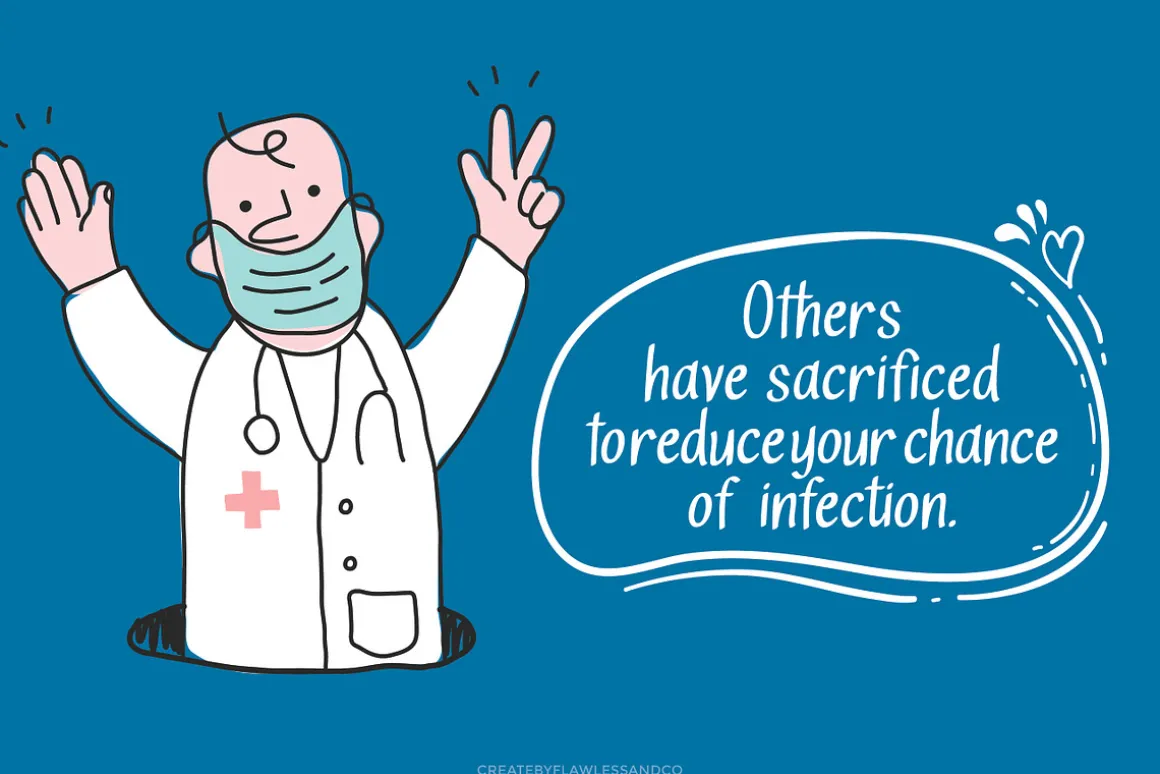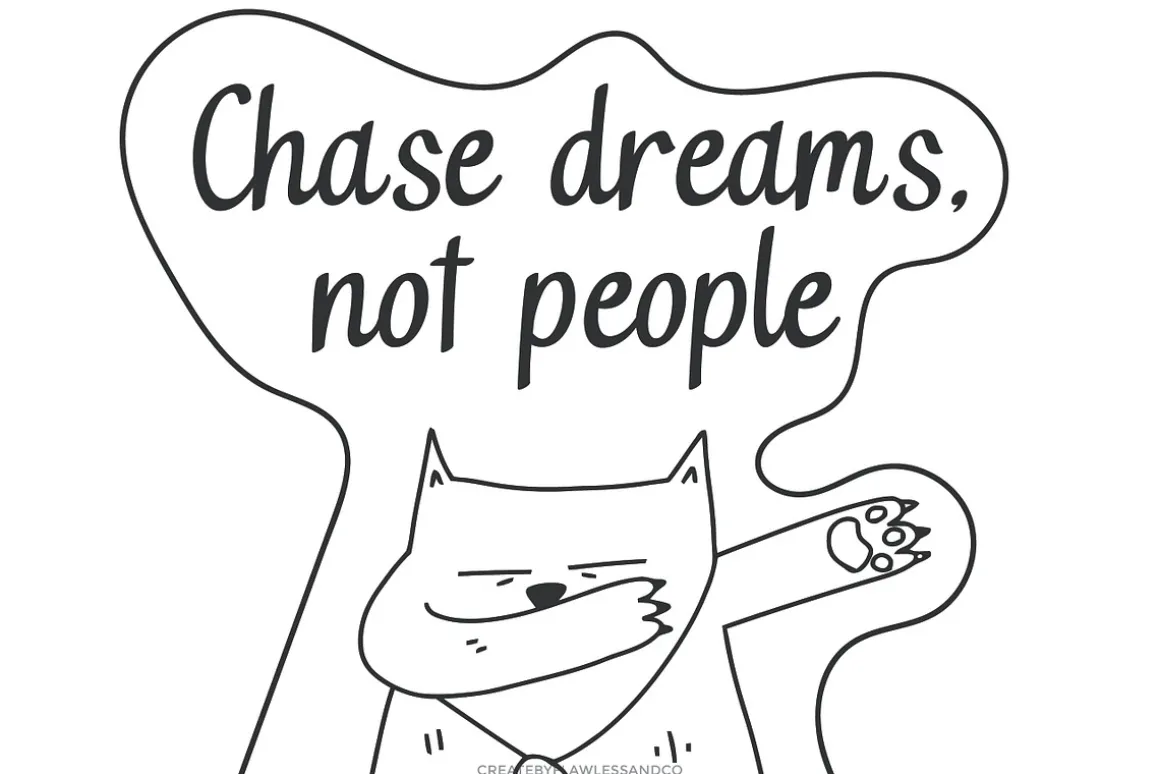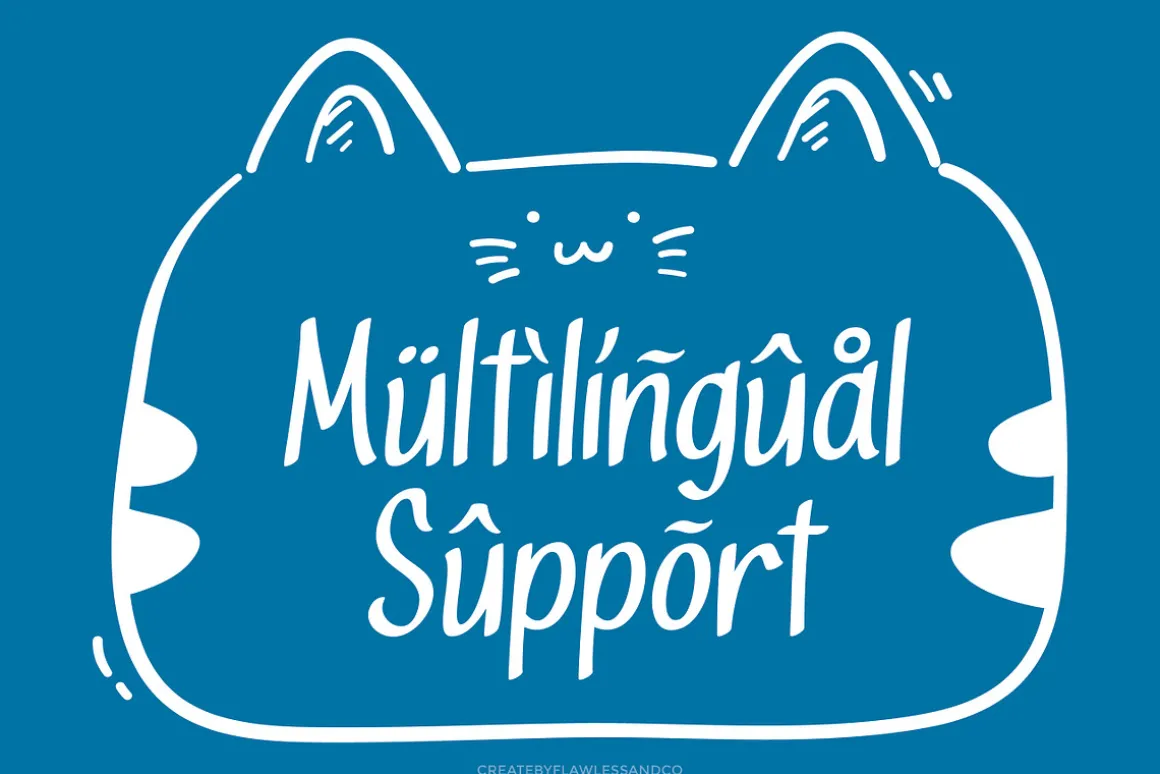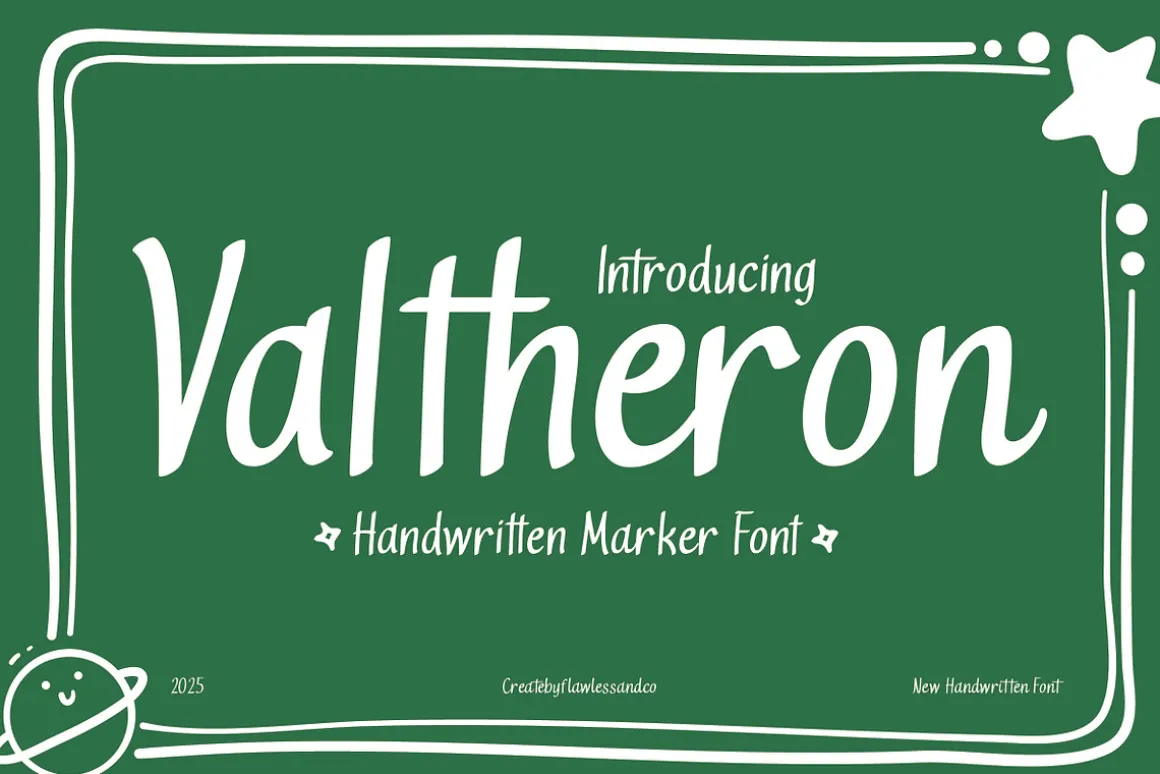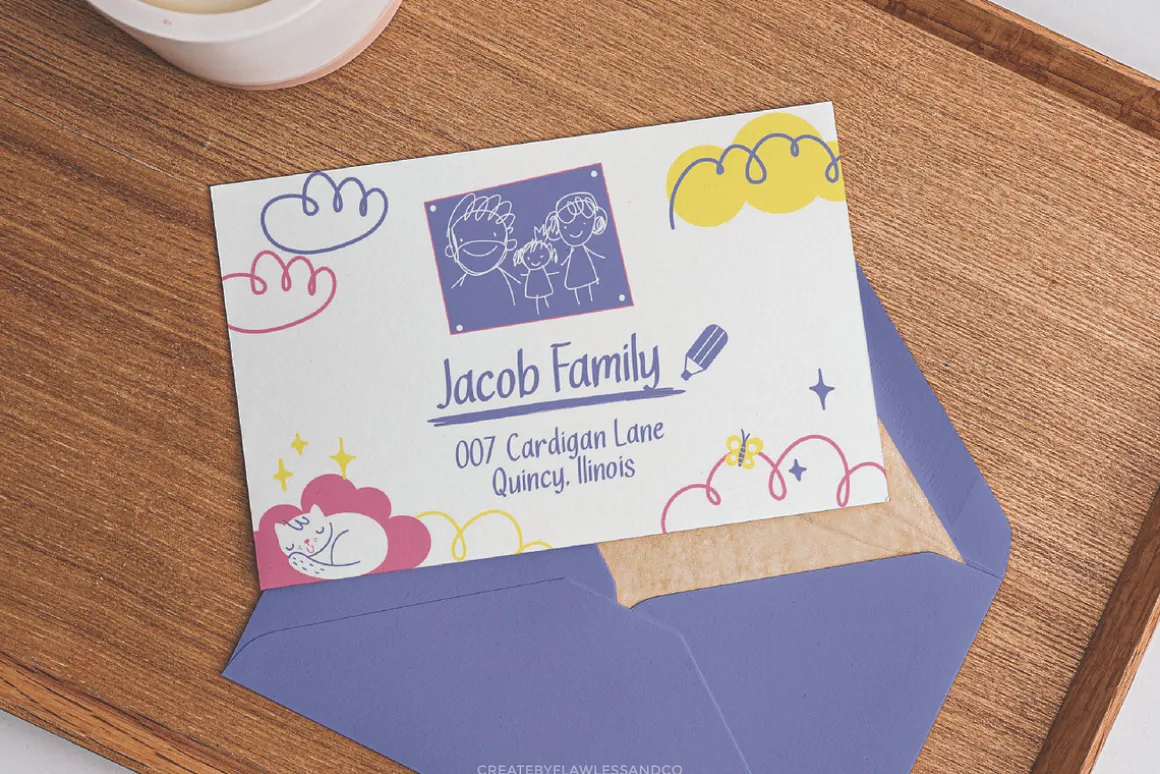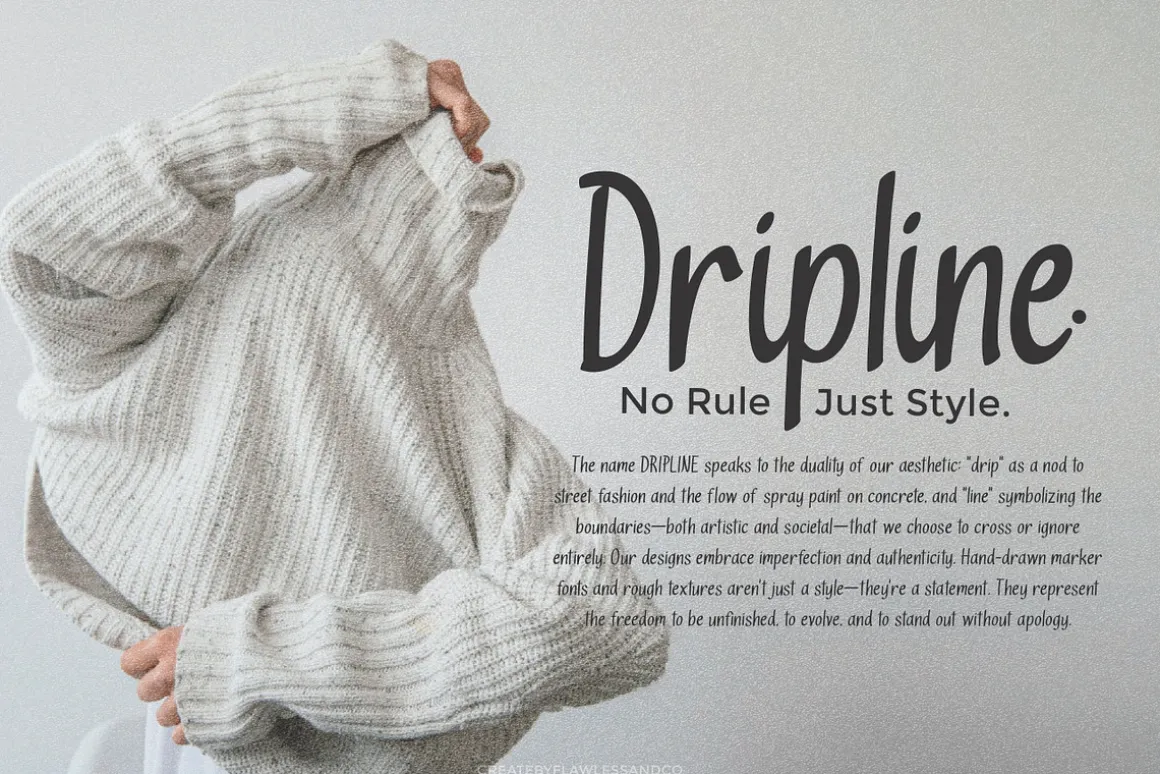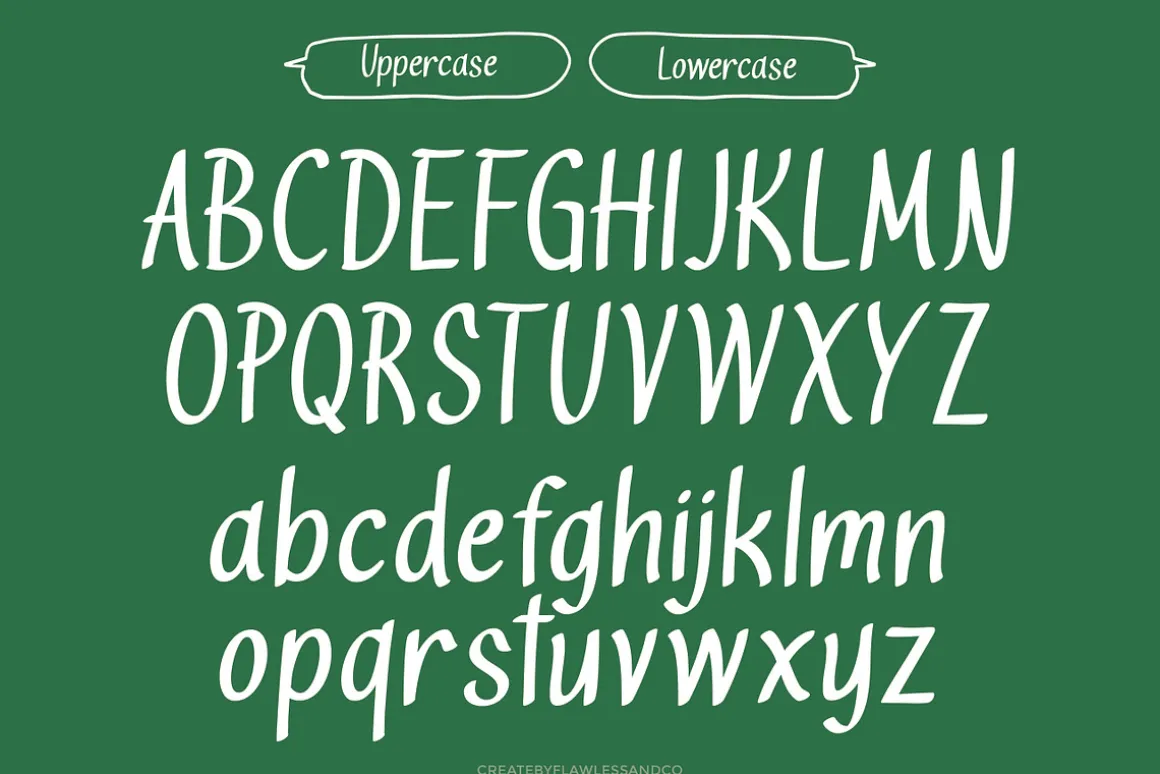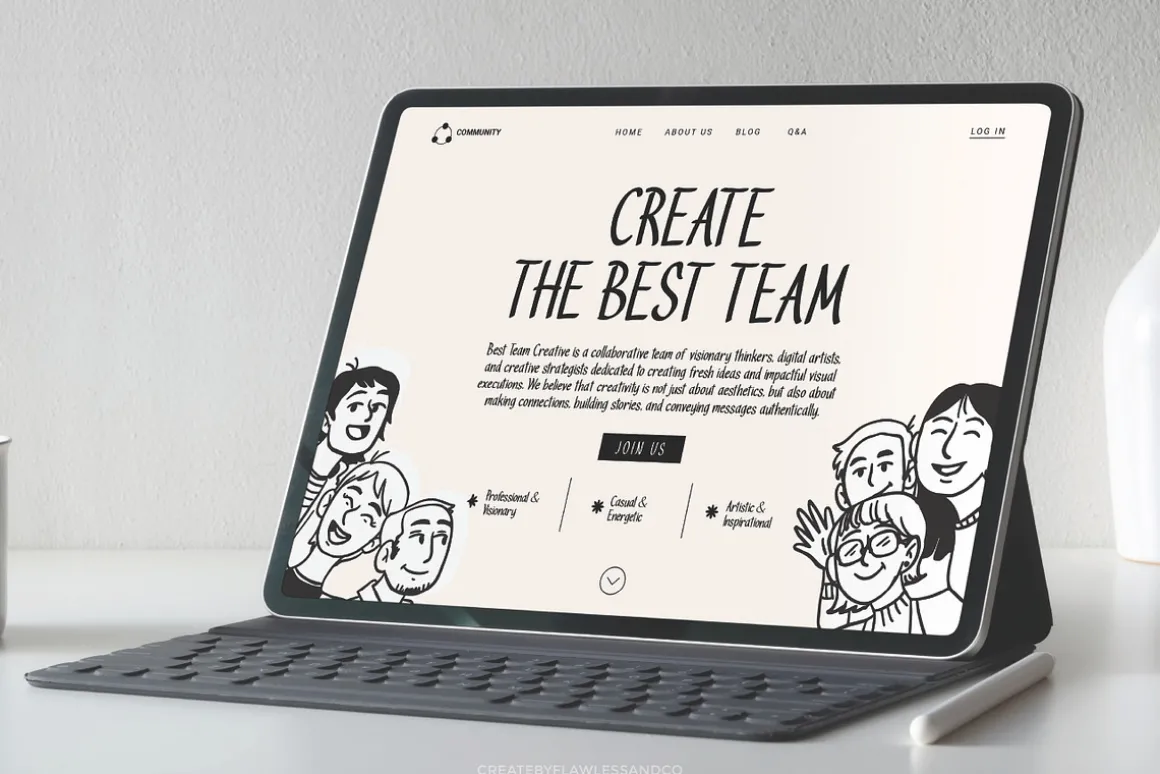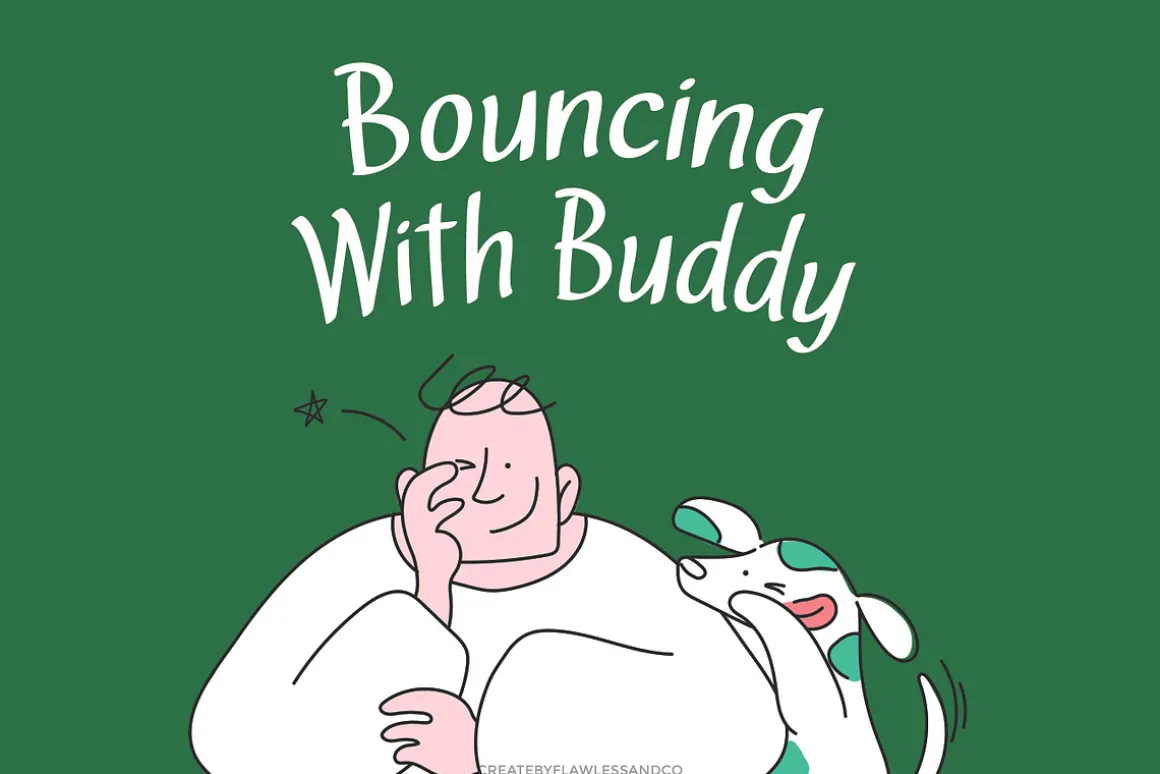
Valtheron – Handwritten Marker Font
Valtheron is a playful and expressive handwritten marker font that captures the energy of casual doodles and authentic handwritten notes. With its slightly slanted strokes and smooth curves, Valtheron brings an approachable and cheerful personality to every project. Whether you’re creating a fun educational worksheet, a creative website header, or branding for a casual product, this font adds that human, hand-crafted charm. A Must-Have Font for Brand and Creative Content CreatorsValtheron stands out with its ability to make your message feel personal and sincere — ideal for designs that aim to connect emotionally with their audience. Its balance between legibility and whimsy makes it versatile enough for both digital and print applications.
Features:
- Uppercase & Lowercase
- Alternates & Ligatures
- Numerals & Punctuation
- Multilingual Support
Who Should Use Valtheron?
Valtheron is perfect for designers, illustrators, educators, and creatives who want to bring a friendly, handmade feel to their work. Whether you’re crafting classroom materials, building a kid-friendly brand, or designing playful web experiences, Valtheron gives your text a personal, approachable voice.
It’s an ideal choice for:
- Teachers and educational content creators
- Children’s book authors and illustrators
- Designers working on cheerful, casual branding
- Social media creators who want a handwritten vibe
- Bloggers and lifestyle brands with a playful tone
- Creative professionals looking for a fun, human touch
If your goal is to make your design feel genuine, light-hearted, and approachable — Valtheron is the font for you.
A Must-Have Font for Brand Creators and Designers
Valtheron is more than just a handwritten marker font — it’s a design asset that adds authenticity and approachability to any visual identity. Its natural flow and hand-crafted feel make it the perfect companion for brand creators and designers who want to craft warm, personal, and memorable experiences. Whether you’re designing a cozy product label, a creative logo, or engaging social content, Valtheron helps your brand speak with heart and character.
Why Choose Valtheron for Brand Projects?
Valtheron brings a fresh, handwritten charm to your branding—perfect for brands that want to feel personal, expressive, and genuine. Its marker-style strokes give a sense of energy and spontaneity while remaining legible and professional. Whether you’re building a brand that’s fun and friendly or creative and artisanal, Valtheron adds that human touch that helps your message connect. From logos and packaging to websites and social media posts, this font makes every word feel uniquely yours.
Suitable For:
- Branding and logo design with a personal, hand-drawn feel
- Creative business cards and packaging labels
- Social media content and casual quote posts
- DIY projects, journals, and scrapbooks
- Children’s books, illustrations, and playful headlines
- Websites and blogs with a friendly, approachable tone
- Editorial layouts that need a handwritten accent
- Educational materials and school-themed designs